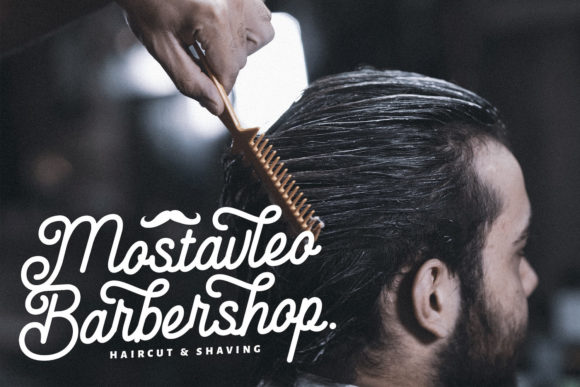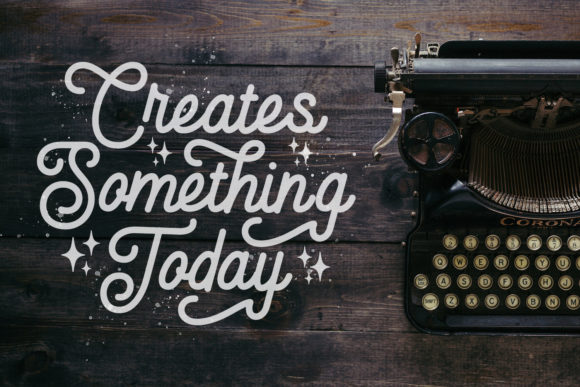
About Anelka Fambuya Font
Anelka Fambuya is a Monoline Script Font with Retro Vintage Style. This font is perfect for fashion brand, apparel, shoes company, wedding invitation, business card, logo brand, clothing, and also business brand name like barber shop or taylor.